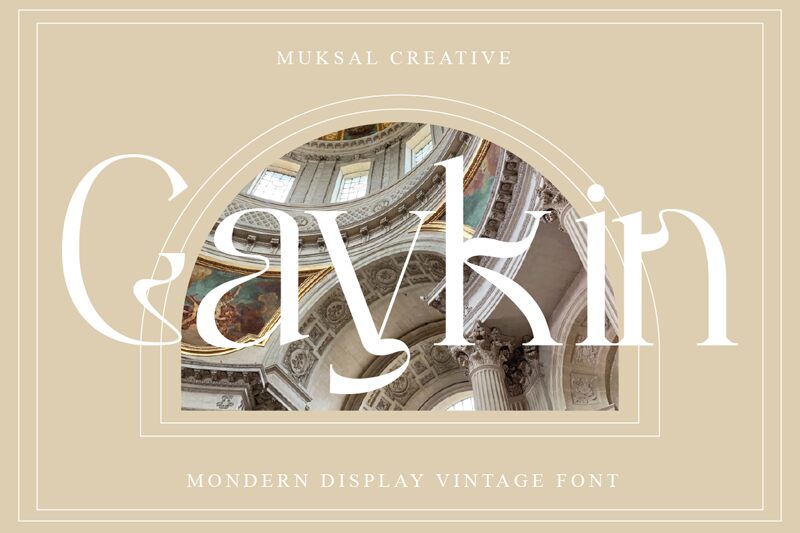
Gaykin font by Muksal Creative is a sophisticated font made up of refined aesthetics and artistic curves which with a closer look will still clearly display its fancy and stylish nature. Each character carries a distinct visual appeal thanks to the various decorative details and the combination of a classic yet vintage style alongside modern flair. Such a font with its vintage appeal can instantly elevate your projects, even those prepared with little effort. It instantly leaves a mark, allowing your needs professional and personal to be comfortably and pleasantly met.
This font is both highly ornamental and highly versatile, so give your projects an elegant look and create dazzling branding designs, magazines, advertisements, card designs, and social media posts. You can also use Gaykin for your posters and flyers, presenting balanced designs that feature the fascinating typography created using this font. Each artistic curve pours into the other forming the peculiar yet coordinated collection of characters available.